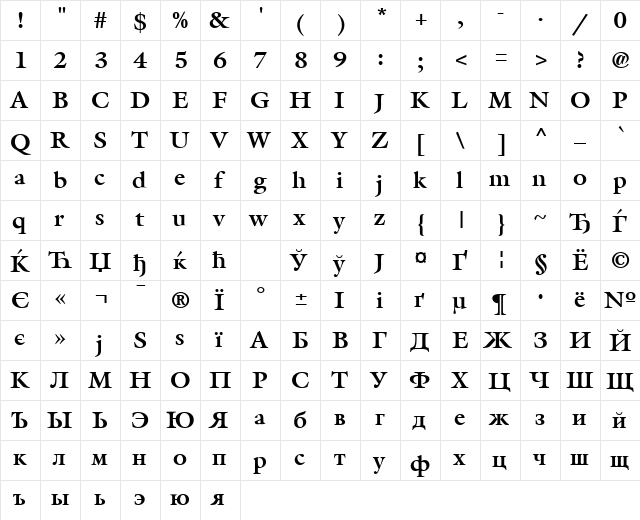
AGGalleon Bold
Design Context for AGGalleon Typeface
AGGalleon offers clean, dependable letterforms without strong stylistic allegiance, making it a practical choice for designers who need flexibility. The heavy weight commands attention and anchors typographic hierarchies.